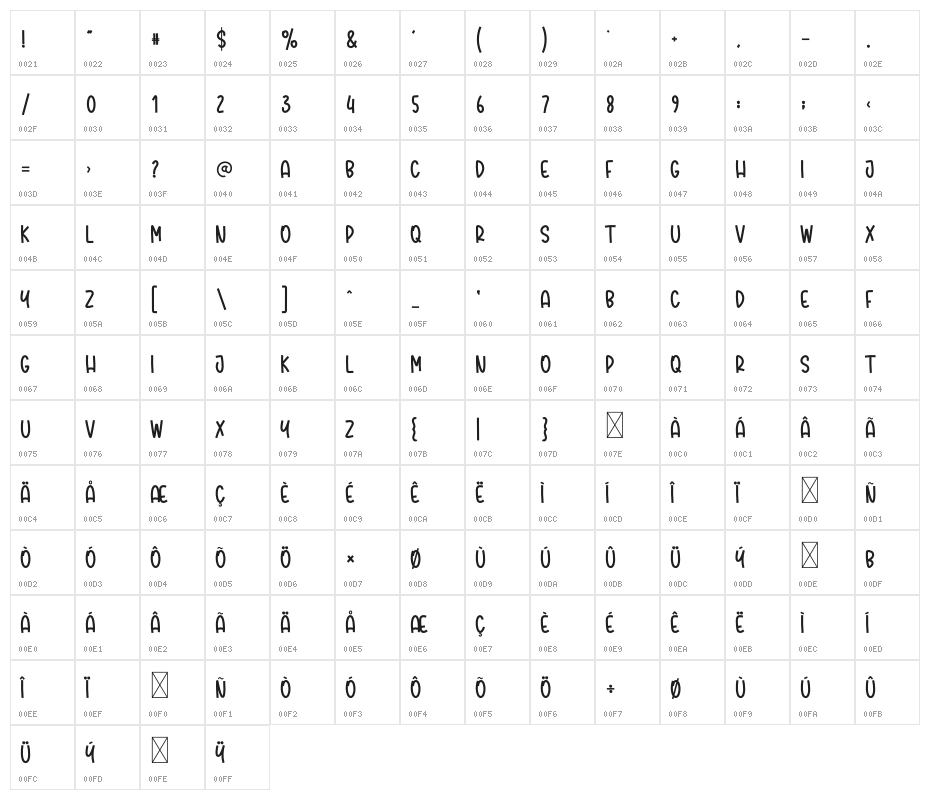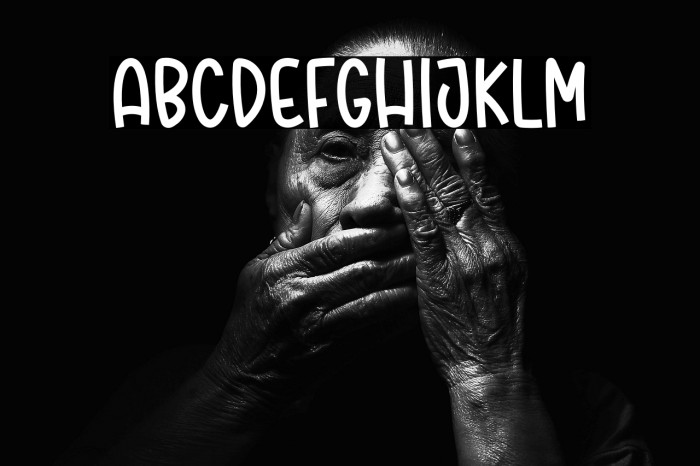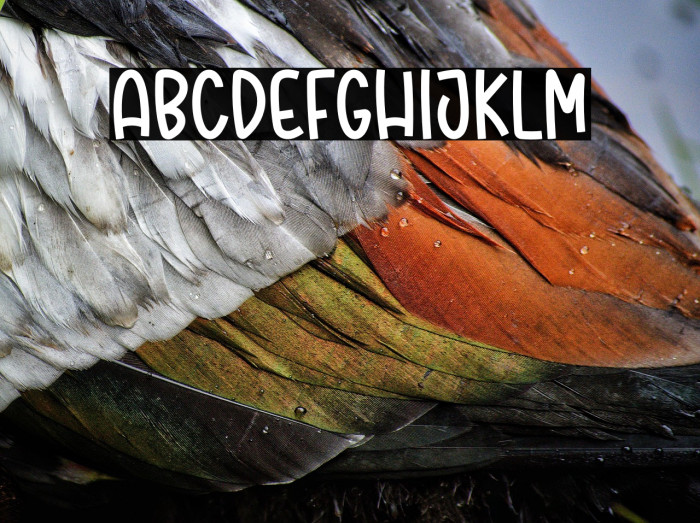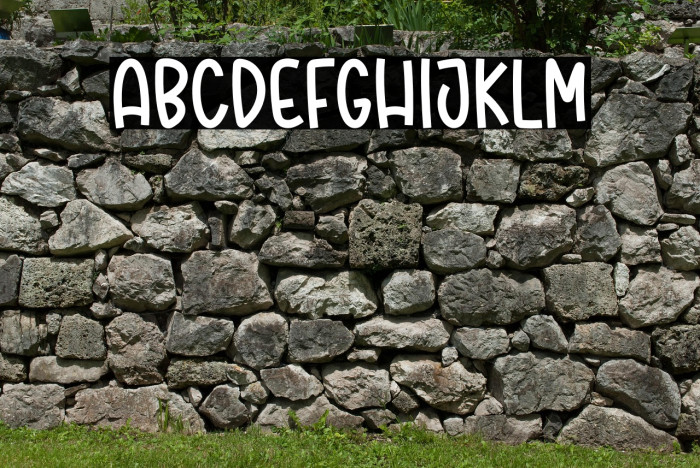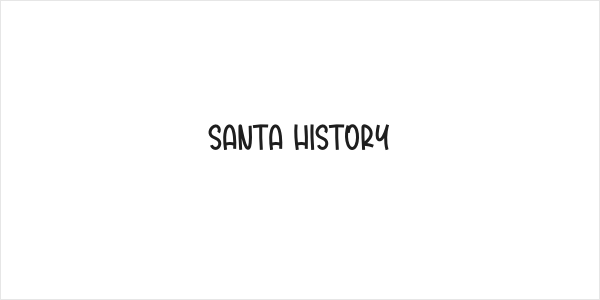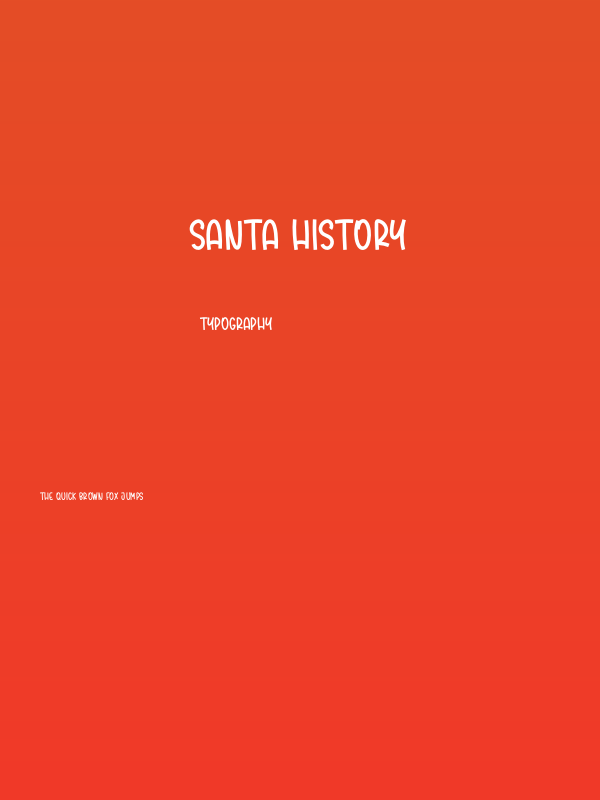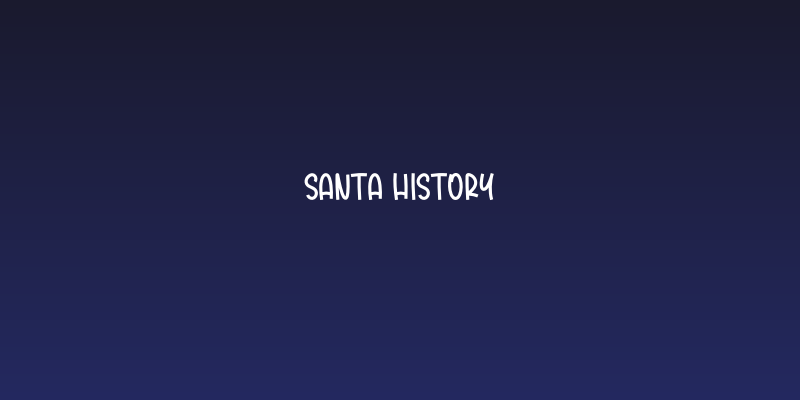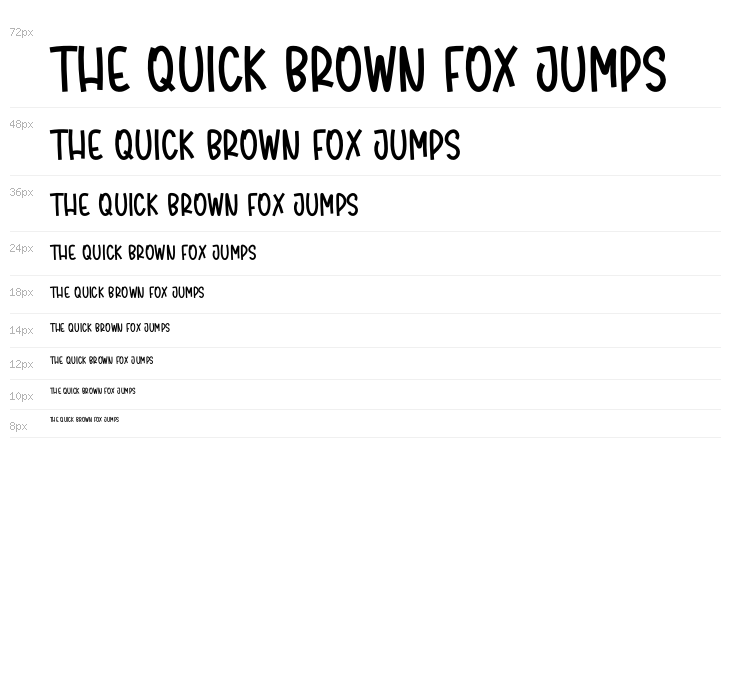
Santa History Font
Santa History Description
This font features a playful and informal style with rounded edges and a handwritten appearance. The characters are slightly irregular, adding a whimsical and friendly touch. The uppercase and lowercase letters maintain a consistent style, while the numerals and special characters complement the overall design. This font is well-suited for projects that require a casual and approachable feel, such as children's books, greeting cards, or playful branding materials.
| Use Case | Headlines, Informal text, Branding |
| Proposed Projects | Ideal for children's books, greeting cards, playful branding, and informal invitations. |